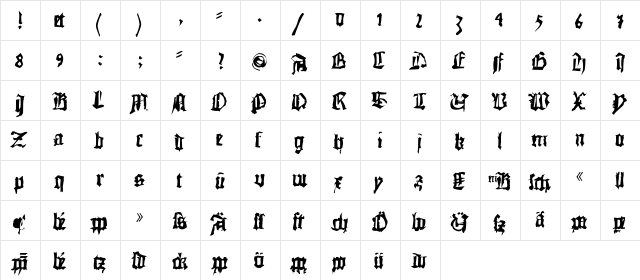
DoubleBrokenTextura Regular
Design Context for DoubleBrokenTextura Typeface
DoubleBrokenTextura draws on the rich tradition of blackletter calligraphy, with dense, angular strokes that evoke medieval manuscripts and old-world craftsmanship.
A natural fit for music packaging, gothic editorial design, and any project that needs historical weight.
Font Pairing: Pair with a clean neutral sans-serif for body copy to let DoubleBrokenTextura's character lead without overwhelming the composition.
Pro Tip: Reserve DoubleBrokenTextura for display and logo use — pair it with a clean sans-serif for body copy to prevent the composition from feeling oppressive.